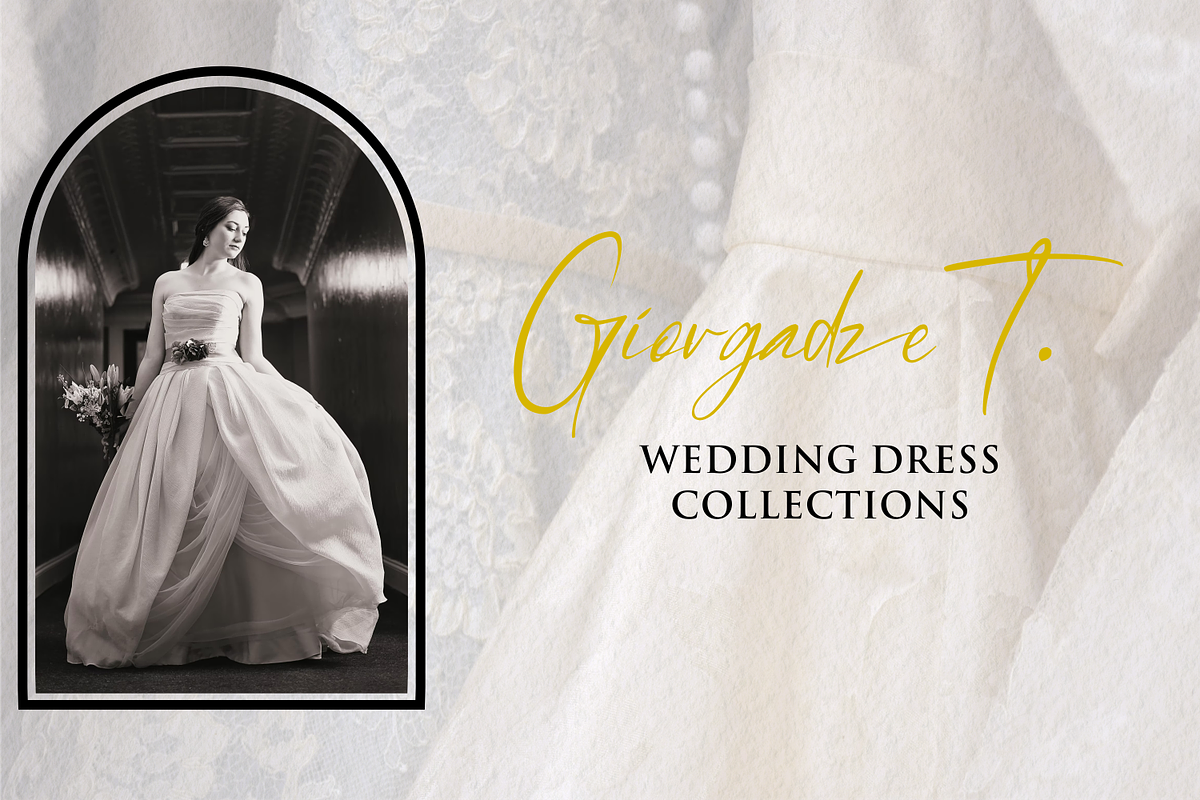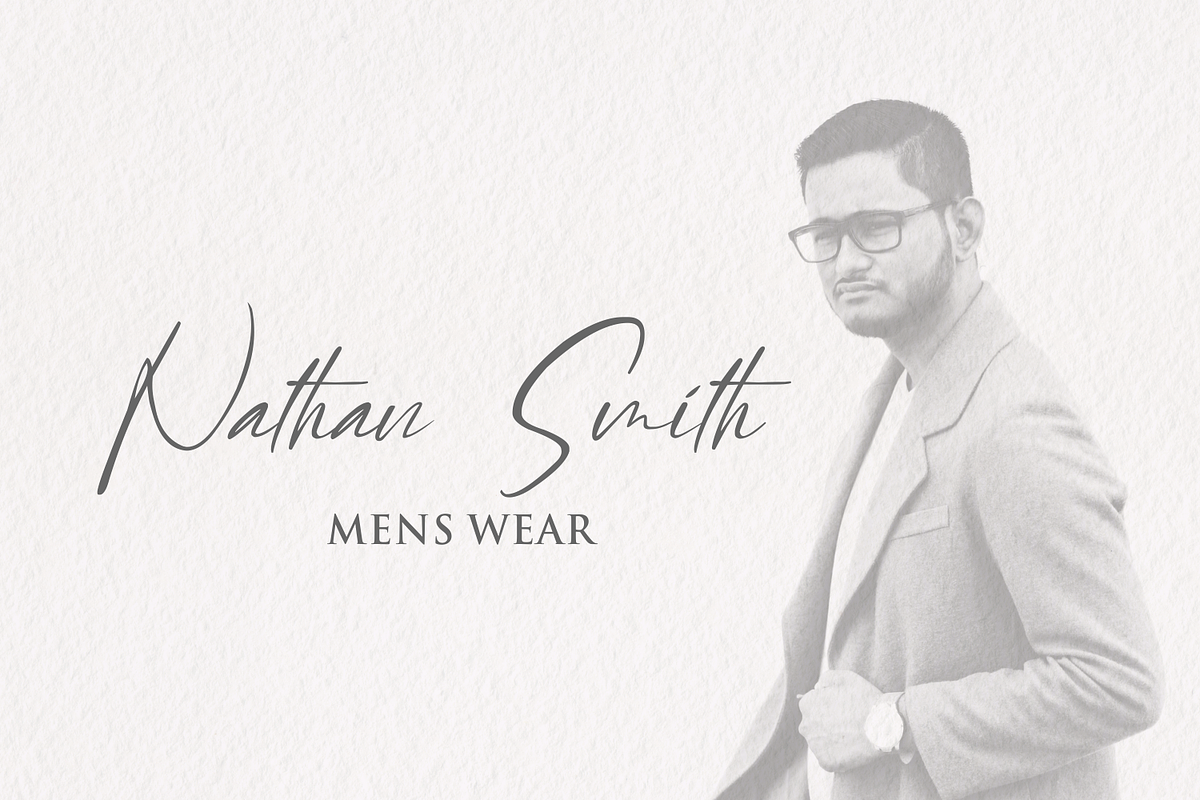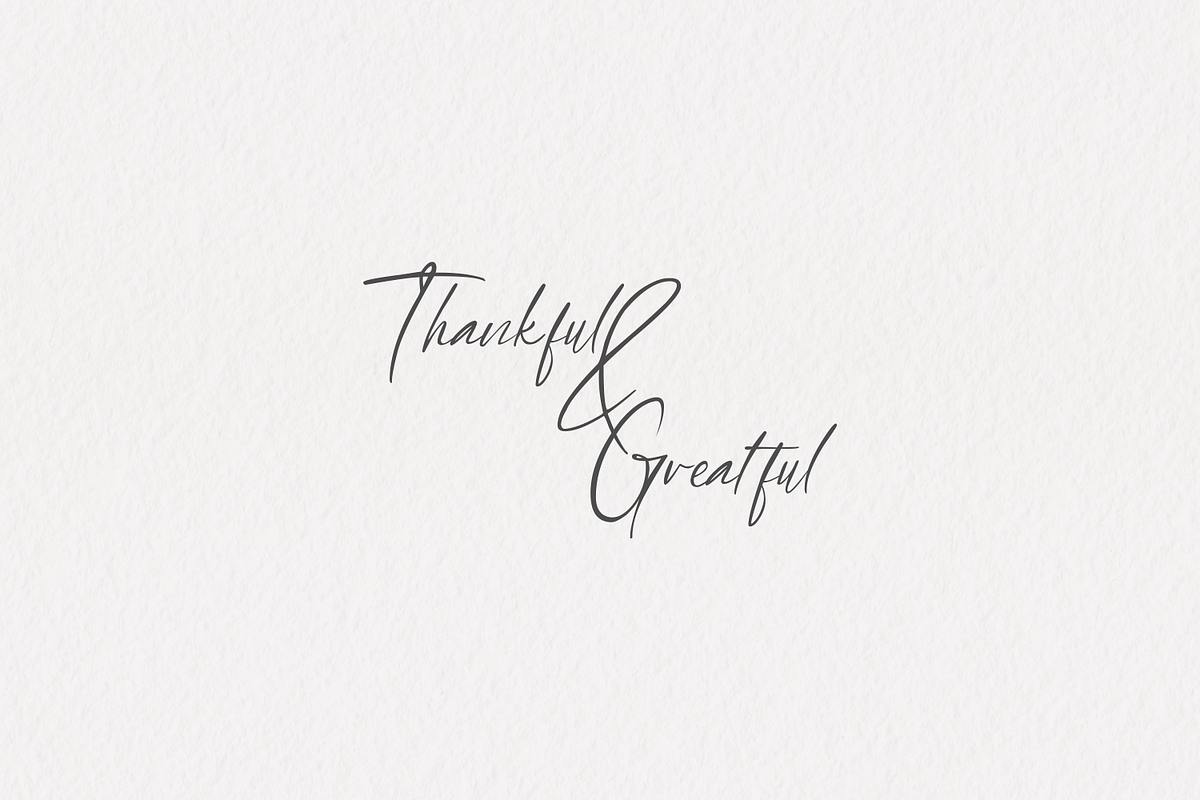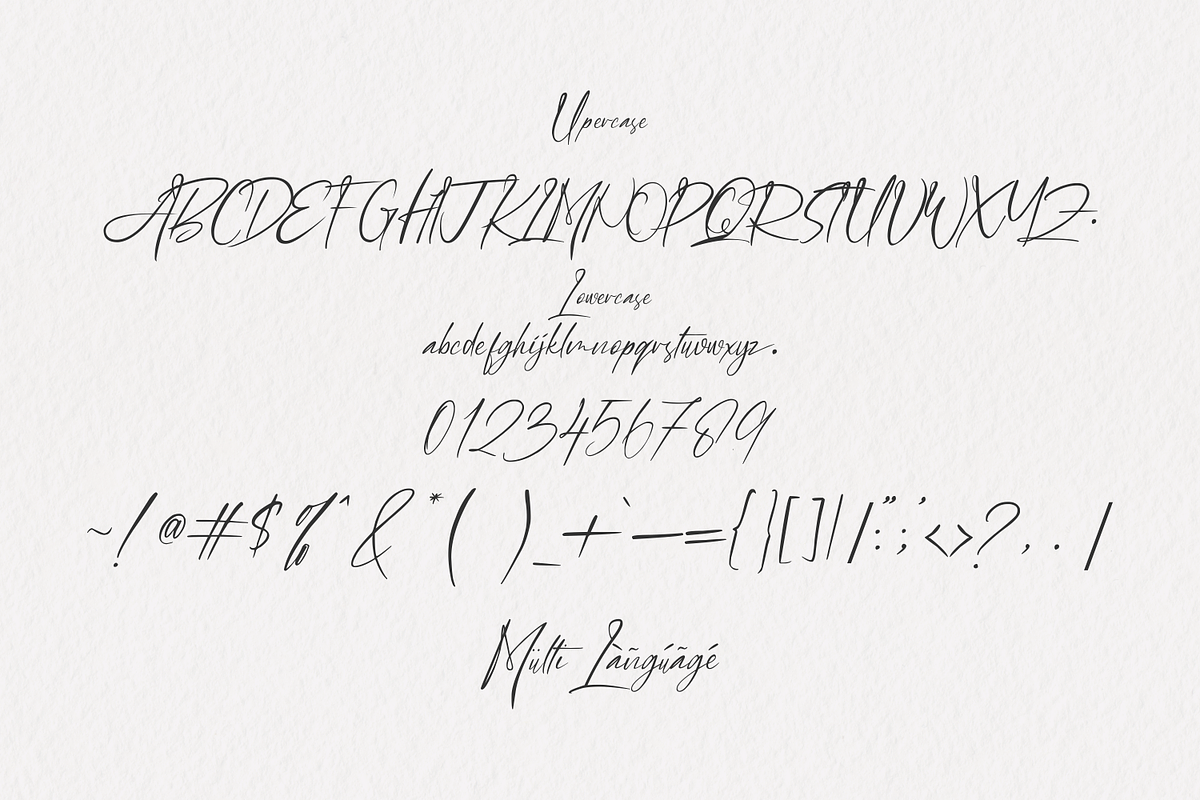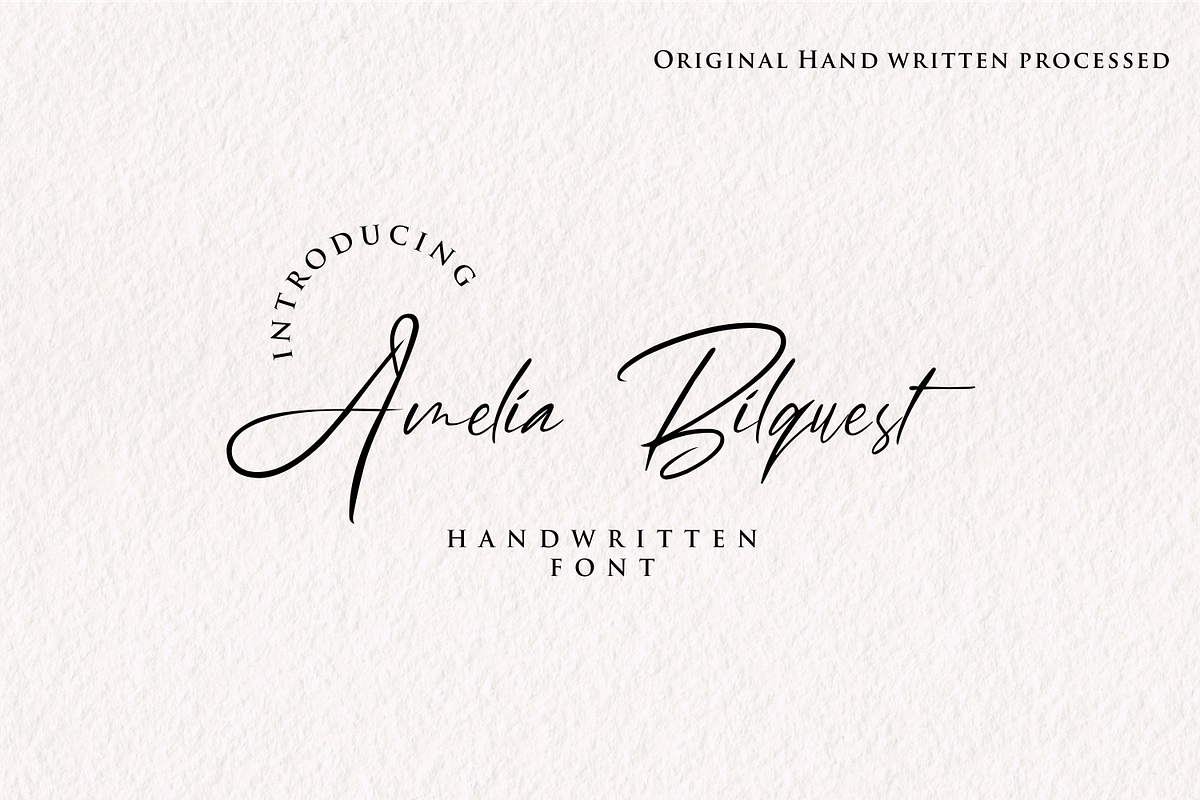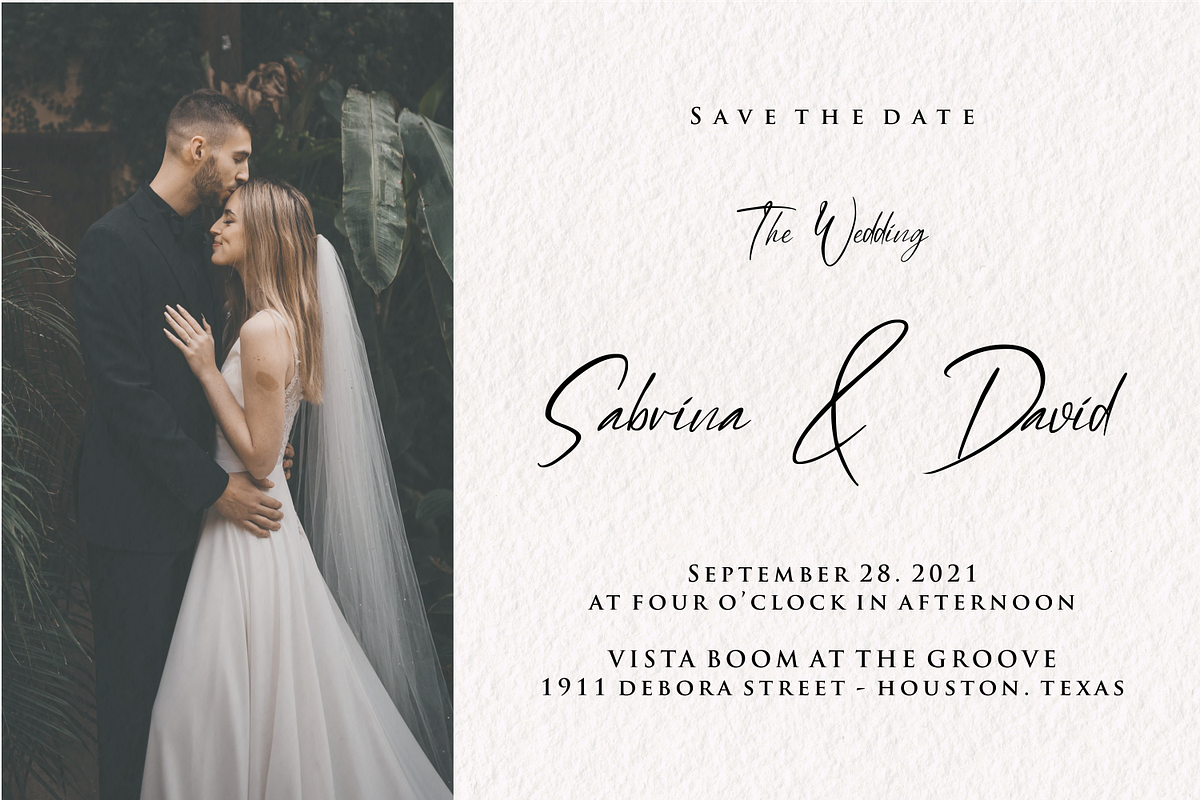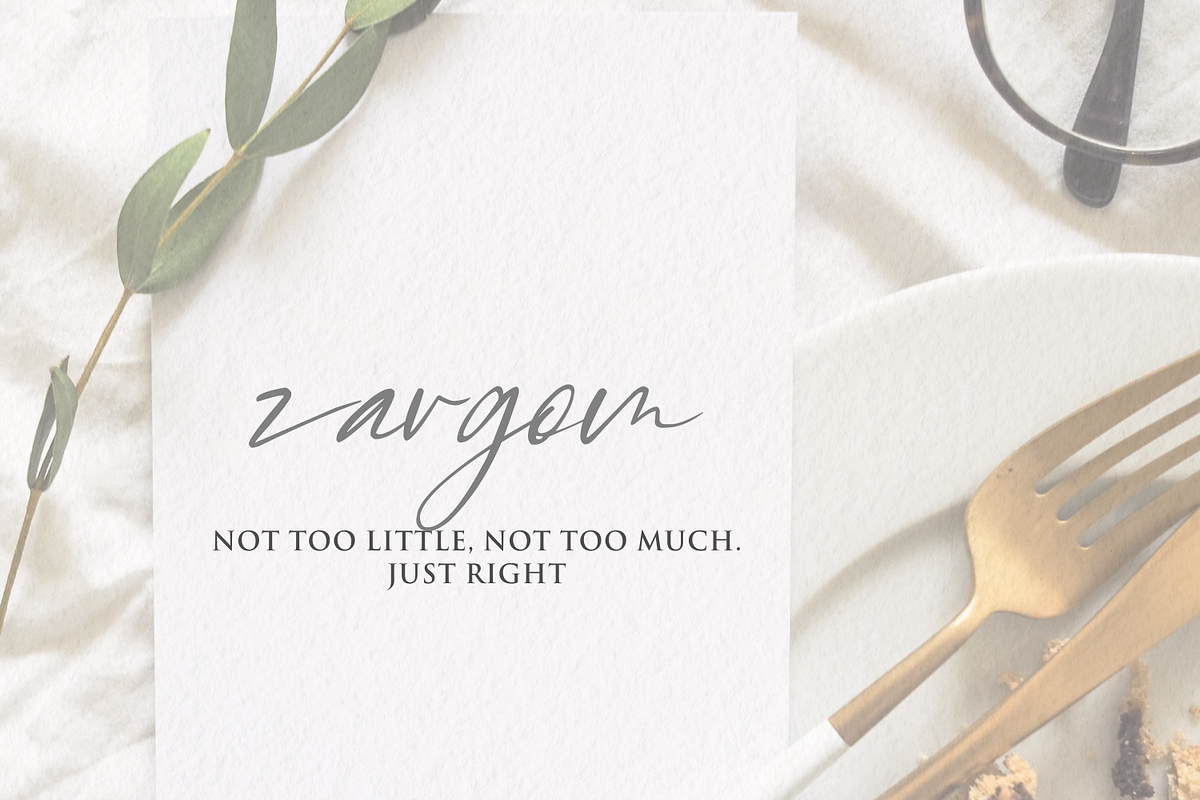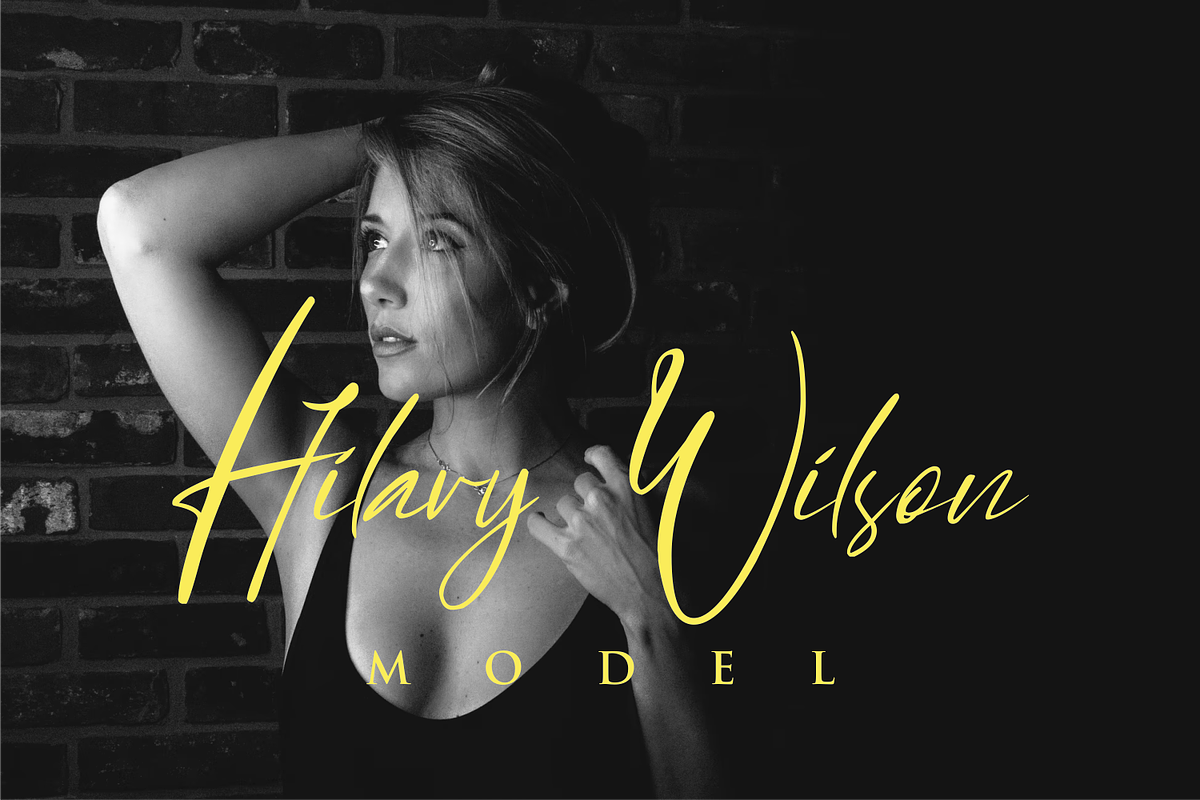
Amelia Bilquest
Amelia Bilquest is an organic handwritten font inspired by simplicity and people's habit of writing in a simple but strong character, perfect for branding, signatures, wedding invitations, promotions, product packaging and other needs. This font is modern, simple, but still original. You will get a full set of lowercase and uppercase letters, numbers and punctuation marks, multilingual symbols,